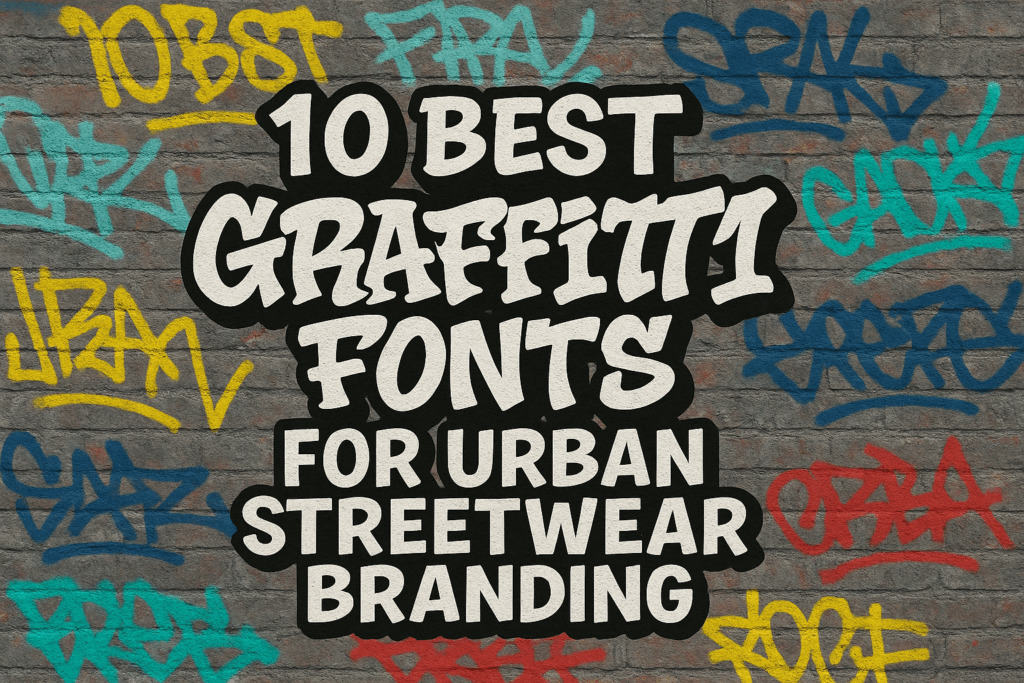
10 Best Graffiti Fonts for Urban Streetwear Branding
When it comes to streetwear branding, typography plays a massive role. A bold graffiti font can instantly capture the urban energy, attitude, and rebellion that defines the culture.
Whether you’re designing a clothing logo, sticker pack, poster, or album cover, choosing the right graffiti font can make your visuals unforgettable.
Below are 10 of the best graffiti fonts from Ronny Studio — each crafted with authentic street inspiration.
1. Crazy Blocks
This font captures the essence of old-school graffiti — bold, blocky, and full of attitude. Perfect for streetwear logos, album titles, and urban merchandise.
2. Wyshper
A combination of modern spray-paint texture and freestyle flow. Ideal for apparel, branding, or digital art projects.
3. Thrashlane
Inspired by punk and hardcore aesthetics, Thrashlane gives a rough-edged style that feels rebellious and energetic.
4. Overals
Sharp strokes and distorted angles give Overals a raw personality — perfect for metal bands and streetwear visuals.
5. Thiskuy
Playful yet powerful. Thiskuy brings a modern graffiti feel suitable for youth fashion and lifestyle branding.
6. Dawnee
Clean, street-sharp, and edgy. Dawnee fits perfectly in high-contrast poster design or minimalist street apparel.
7. Rexover
This one’s bold and confident, inspired by brush graffiti and marker tags. Ideal for t-shirt design and logo branding.
8. Nofex
Perfect for underground music or hip-hop branding. Its rugged texture adds authentic street vibes.
9. Bestigia
Graffiti meets modern design — Bestigia is great for those who want urban edge with clean legibility.
10. Bigerside
The true spirit of bold street art. This typeface adds energy and motion to your brand visuals.
Final Thoughts
Graffiti fonts are not just for street murals — they’re a design language of rebellion and creativity.
With these fonts from Ronny Studio, your streetwear brand can project authenticity and attitude that stands out in every design.